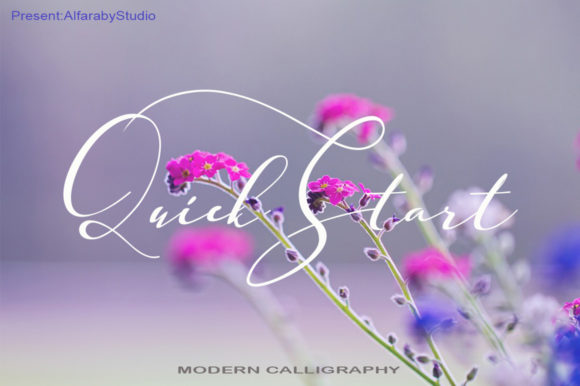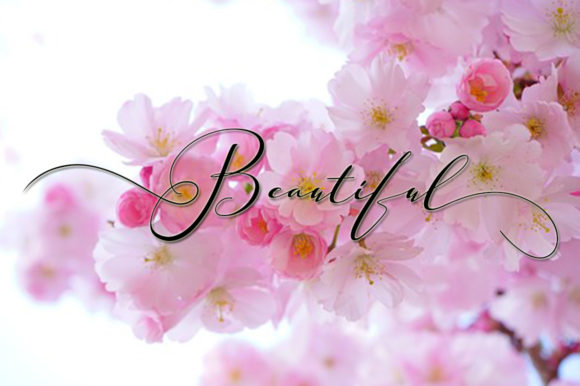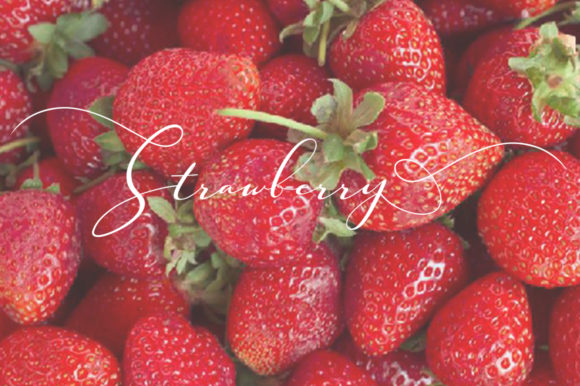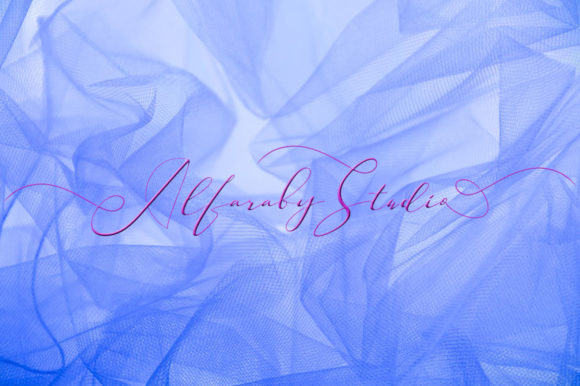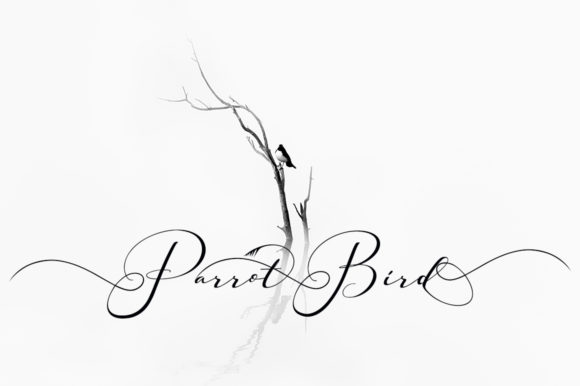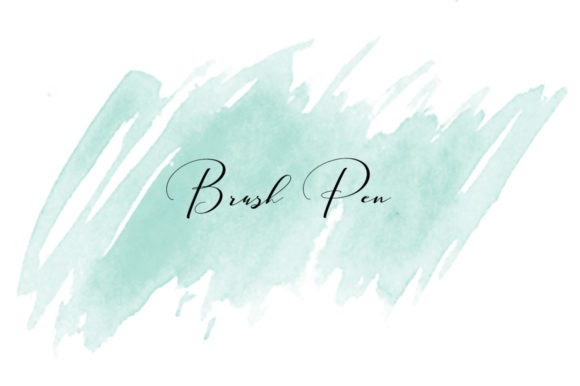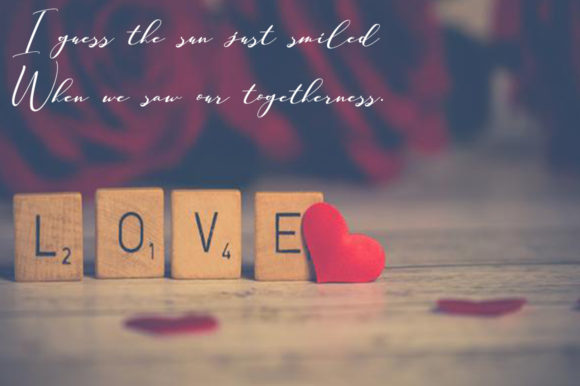
Quick Start Font
About Quick Start Font
Quick Start is an incredibly light and beautiful handwritten font with an authentic feel. Get inspired by its bold charm, and turn any design project into a lovely stand out!